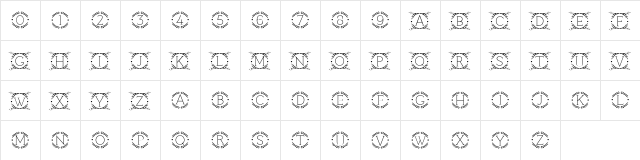
Cruncho Monogram Regular
| Foundry | 7NTypes |
| Designer | Dreamink; Dani; Situjuh Nazara |
Design Context for Cruncho Monogram Typeface
Cruncho Monogram uses fixed-width spacing throughout, giving it the structured, systematic character associated with coding environments and technical documentation.
A natural fit for code editors, technical documentation, developer-focused branding, and terminal-inspired UI.
Pro Tip: Pair Cruncho Monogram with a proportional sans for UI contexts where code-style labels and regular body copy need to coexist.